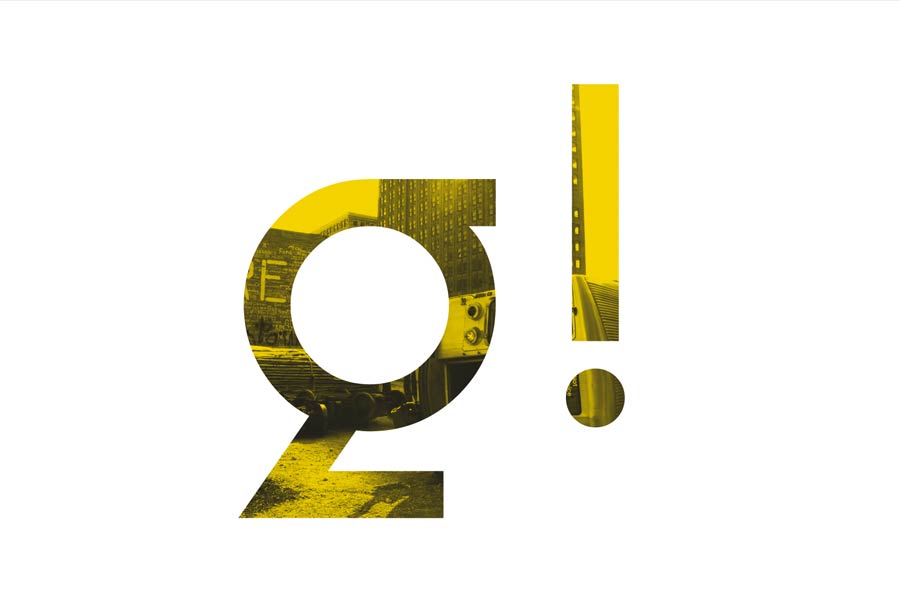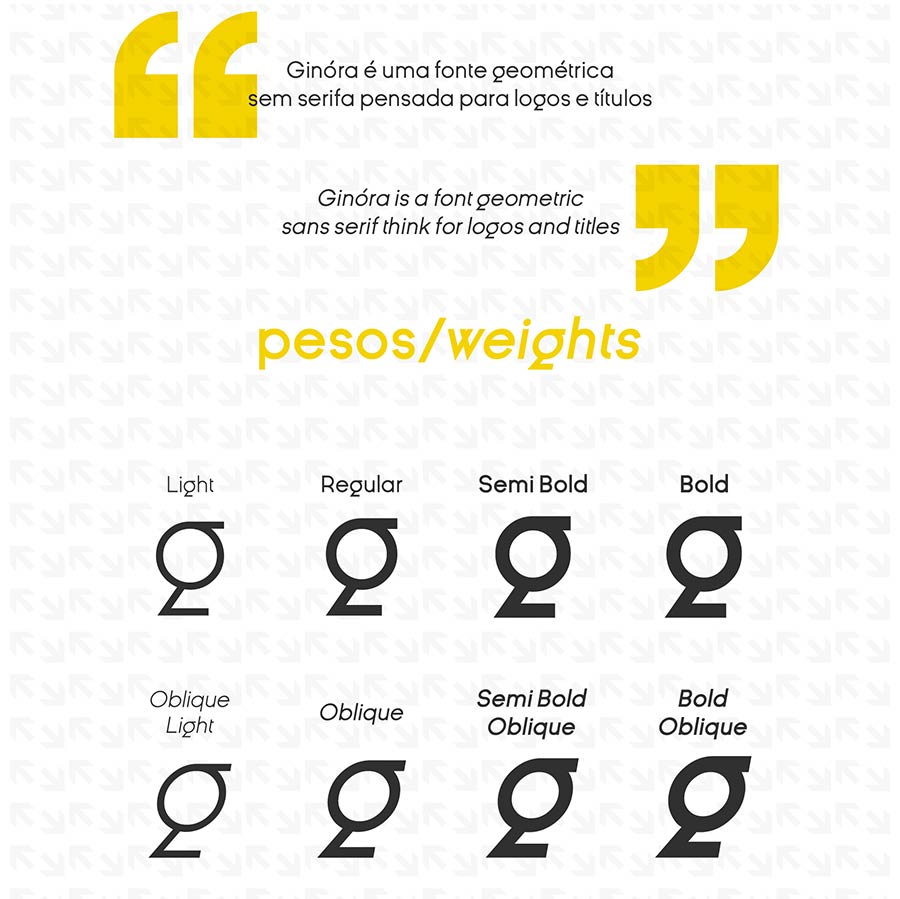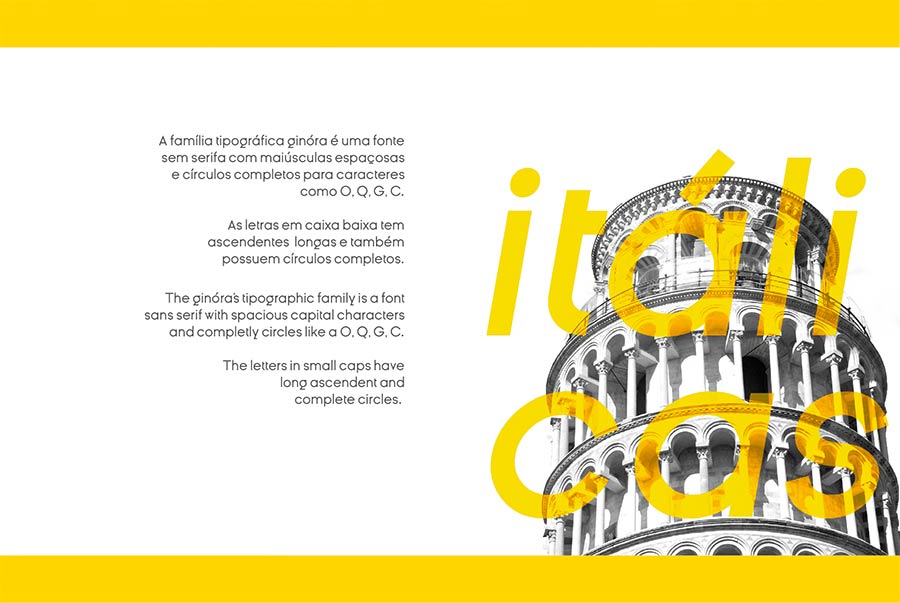
Ginora Sans is a geometrical sans serif font and it comes with 8 styles, including 4 weights (light, regular, semibold and bold) together with italic for each weights. It comes with extensive character sets including extended latin characters. Out of all the characters, the descender of the letter “g” has the most unique touch to it, and letters like “O, G, C and Q” were created with perfect circle.